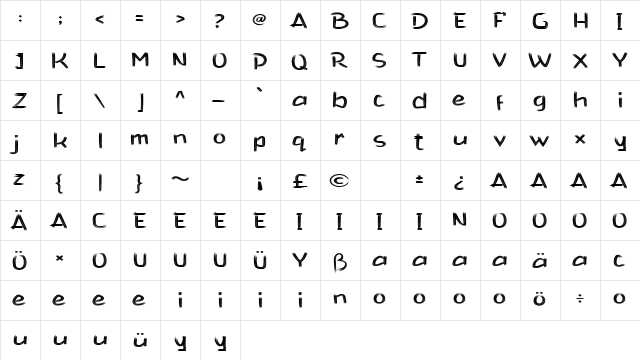
Antonio Zull Brush
| Style | Brush |
| Foundry | Yantodesign Studio Co. |
| Designer | Joko Triwijayanto |
Design Context for Antonio Zull Typeface
Antonio Zull brings a calligraphic fluidity to the page — its connecting strokes and expressive curves give it an unmistakably human quality.
Font Pairing: Combine Antonio Zull with a simple geometric sans for maximum contrast — the tension between flowing curves and clean structure is a classic typographic pairing.
Pro Tip: Pair Antonio Zull with a clean sans-serif for supporting text. The contrast between fluid script and geometric structure creates an elegant typographic hierarchy.